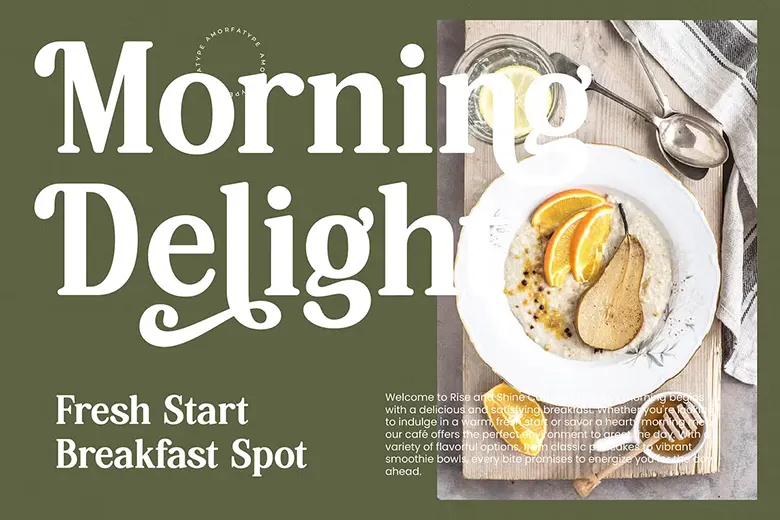
Hasbor is a bold, modern serif font that mixes elegance with a fresh style. Its clean lines and unique letterforms make it stand out. The font combines classic and modern elements with balanced stroke weights for a polished look.
Hasbor works well for many projects, from branding and magazine layouts to digital designs. It’s great for bold headlines and easy to read in smaller text. Each letter is designed carefully to be both stylish and functional, making it a strong choice for designers.
Hasbor Serif Font